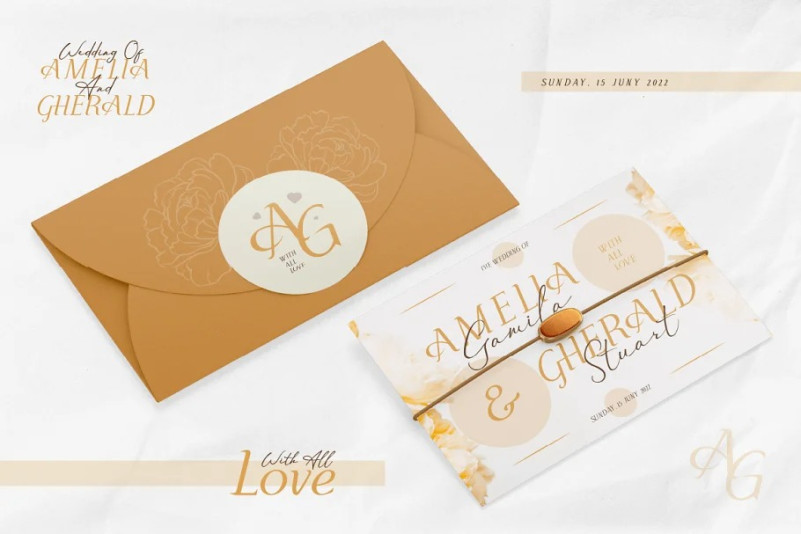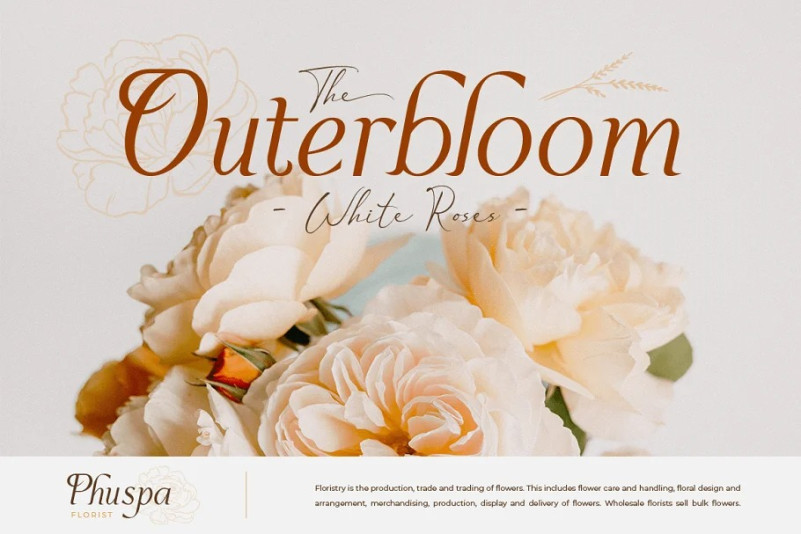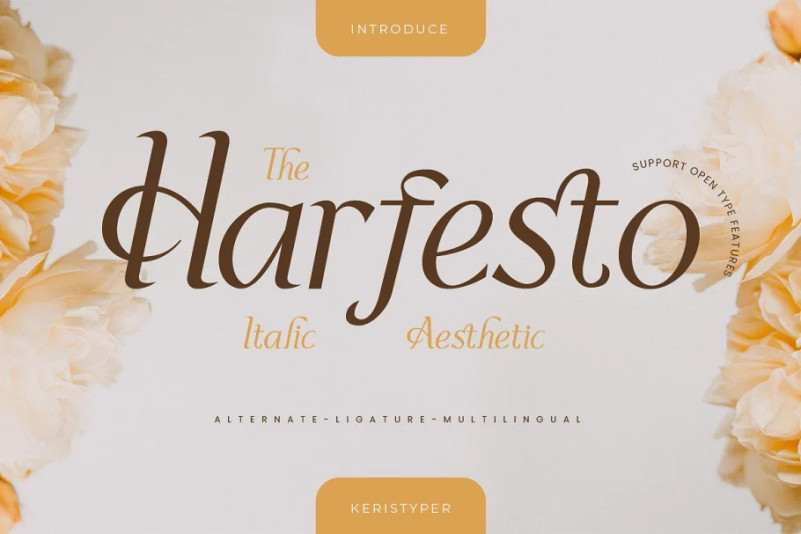
Harfesto Font
Harfesto Font is an elegant glamour and stylish italic serif with modern classy and feminine characteristic. This font is good for logo design, Social media, Movie Titles, Books Titles, short text even long text letters, and good for your secondary text font with the script, sans, or serif.